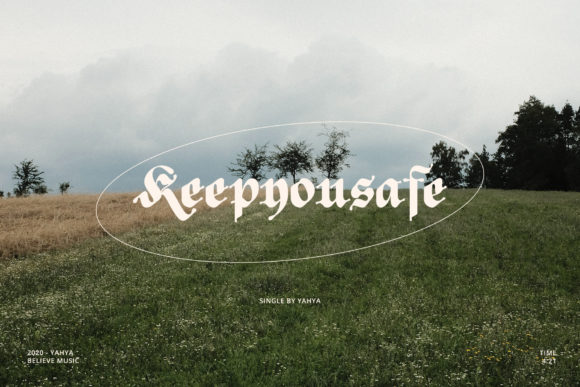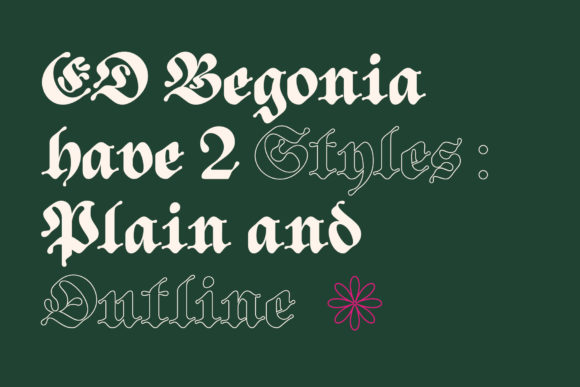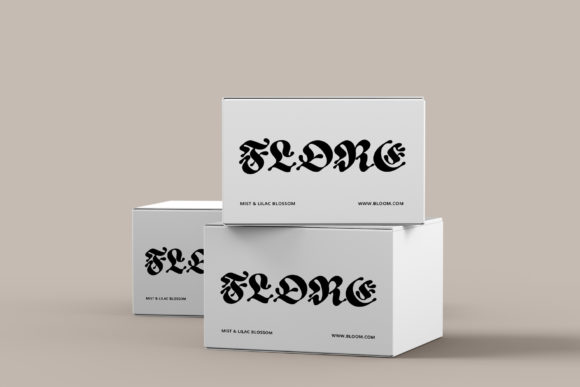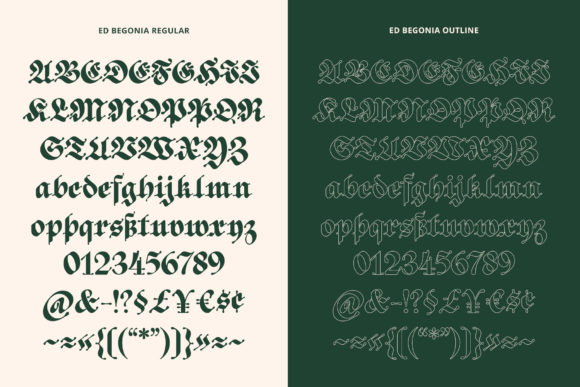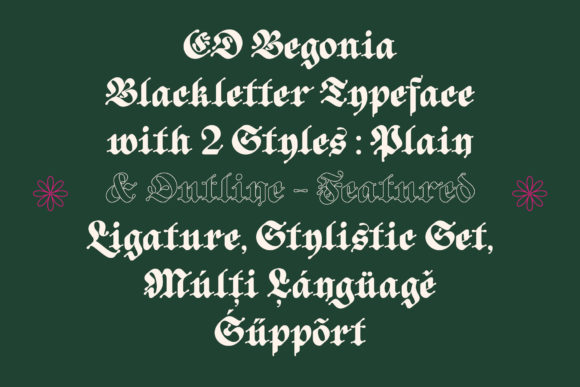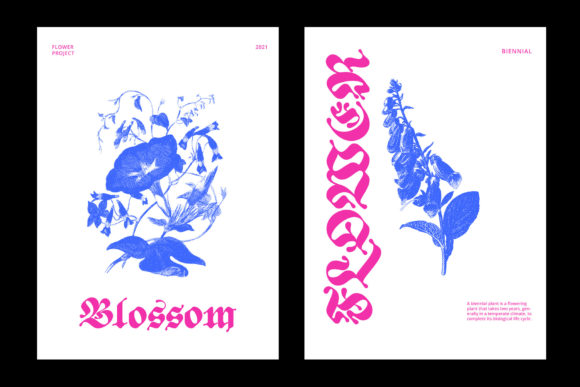
Introduction to ED Begonia Font
Remember that moment when you’re working on a creative project and you need the perfect font to bring it all together? The one that elevates your design from good to great? For many designers, that moment is when they discover the ED Begonia Font.
This highly detailed blackletter font is a game-changer, offering a unique blend of classy calligraphic influences and a fresh, contemporary feel. Whether you’re working on a branding project, a graphic novel, or any other creative endeavor, ED Begonia Font is the perfect design resource to help you achieve high-quality results.
Key Features of ED Begonia Font
• High-quality, free download font ideal for creative projects requiring a unique touch
• Transparent background design allowing for seamless integration into various design resources
• Includes a wide range of characters, including Latin, Cyrillic, and Greek alphabets, making it suitable for multilingual designs
• Designed with a high-resolution (1024 x 1024 pixels) image, ensuring crisp and clear typography even at large sizes
• Unique, hand-drawn style that adds a touch of elegance and sophistication to any design project
Honest Review: ED Begonia Font
As a designer, I’m always on the lookout for high-quality design resources to elevate my creative projects. The ED Begonia Font is one such resource that caught my attention. I decided to put it to the test and share my honest review with you.
• Unique and elegant design aesthetic that adds a touch of sophistication to any project.
• High-quality vector graphics that scale well, making it perfect for print and digital applications.
• Transparent background, which is a bonus for designers who want to easily layer the font with other design elements.
One thing I wish the ED Begonia Font had was more font weights and styles. Having more options would have given me more flexibility when designing a project.
Overall, I’m impressed with the ED Begonia Font. Its unique design aesthetic and high-quality vector graphics make it a great addition to any designer’s toolkit. While it may have some limitations, it’s still a solid choice for designers looking for a free, high-quality font.
Tips for Getting the Most Out of ED Begonia Font
To get the most out of ED Begonia Font, experiment with different font sizes, colors, and styles to find the perfect combination for your design. Consider using a transparent background to add depth and visual interest to your design.
ED Begonia Font is a versatile design resource that can be used in a variety of creative projects, including logos, brochures, posters, and social media graphics. Its high-quality design makes it an ideal choice for professional and personal projects alike.
Great Vibes Font is similar to ED Begonia Font in its elegant and sophisticated feel, but it has a more relaxed and casual tone. It’s a great alternative for designers who want a high-quality font without the edginess of ED Begonia Font.